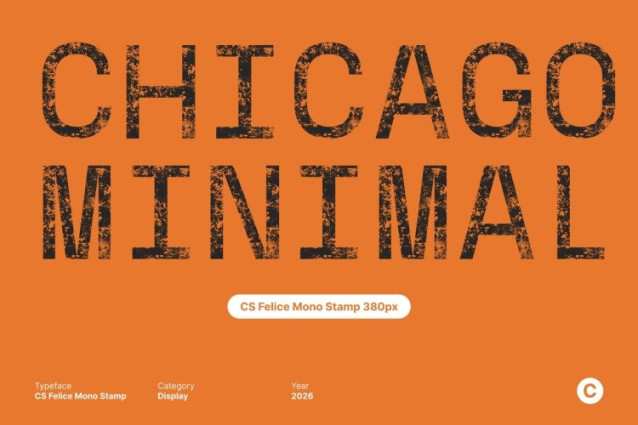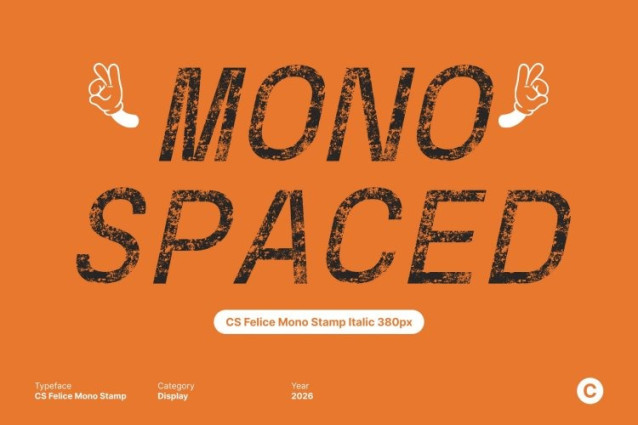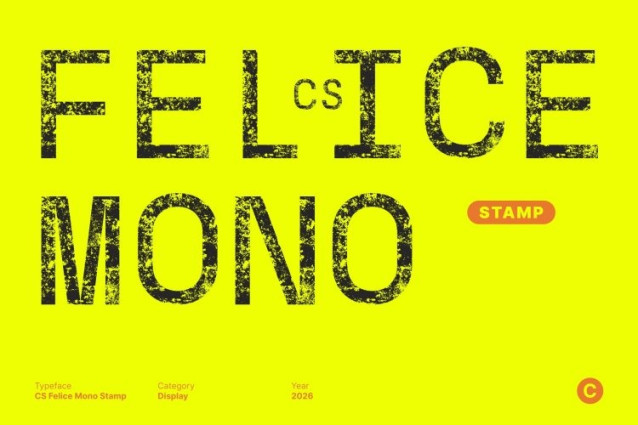
CS Felice Mono Stamp Font
CS Felice Mono Stamp Font This is a monospaced sans-serif font designed with equal-width characters, ensuring consistent spacing throughout every line of text. This structural uniformity enables precise alignment and excellent readability. The monospaced construction guarantees visual accuracy while maintaining a disciplined and orderly layout.
Clean and Contemporary Structure with Stamp Texture
Built on a clean, modern sans-serif foundation, this font delivers a sharp and professional appearance. However, the added stamp effect introduces subtle imperfections, textured edges, and distressed details that soften the rigidity of monospaced geometry. This contrast creates a unique balance between contemporary clarity and vintage charm, giving the font an artistic texture and an old-style printed character without compromising legibility.
Vintage Aesthetic for Coding, Documentation, and Data
While excelling in environments that demand precise text alignment such as programming interfaces, technical writing, and data visualization also brings a distinctive retro personality. The stamp effect evokes the feel of aged typewriters, industrial labels, and traditional print impressions, adding warmth and character to otherwise technical content.
Versatile for Functional and Artistic Layouts
Whether used in software development, data presentations, editorial layouts, or creative technical projects, this font offers both reliability and visual interest. Its combination of monospaced functionality, modern sans-serif clarity, and vintage stamped texture makes a versatile solution for designs that require precision, professionalism, and an expressive old-design aesthetic.